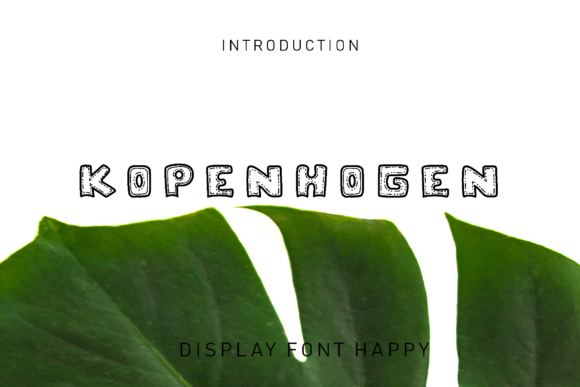
Behold the Kopenhogen Font, a display font family crafted with meticulous attention to detail and graced with an irresistibly cute and thick lettering style. Its purpose is not merely to adorn your designs, but to transform them into captivating expressions of your creativity.
Kopenhogen's versatility knows no bounds. Envision your brand's logo, a beacon of distinction, radiating personality and charm. Let your t-shirts speak volumes with bold statements, capturing the essence of your brand's identity. Elevate your labels with a touch of sophistication, ensuring your products stand out amidst a sea of sameness.
Unleash your storytelling prowess with Kopenhogen as your trusted scribe. Craft posters that ignite imaginations, transporting your audience to realms of wonder and intrigue. Design badges that exude a sense of exclusivity, inviting your customers into a community of like-minded enthusiasts.
With Kopenhogen at your disposal, the possibilities are limitless. Witness how this remarkable display font breathes life into your creative endeavors, turning them into masterpieces that resonate with your audience on a profound level. Embrace the power of Kopenhogen today and unlock a world of captivating designs.